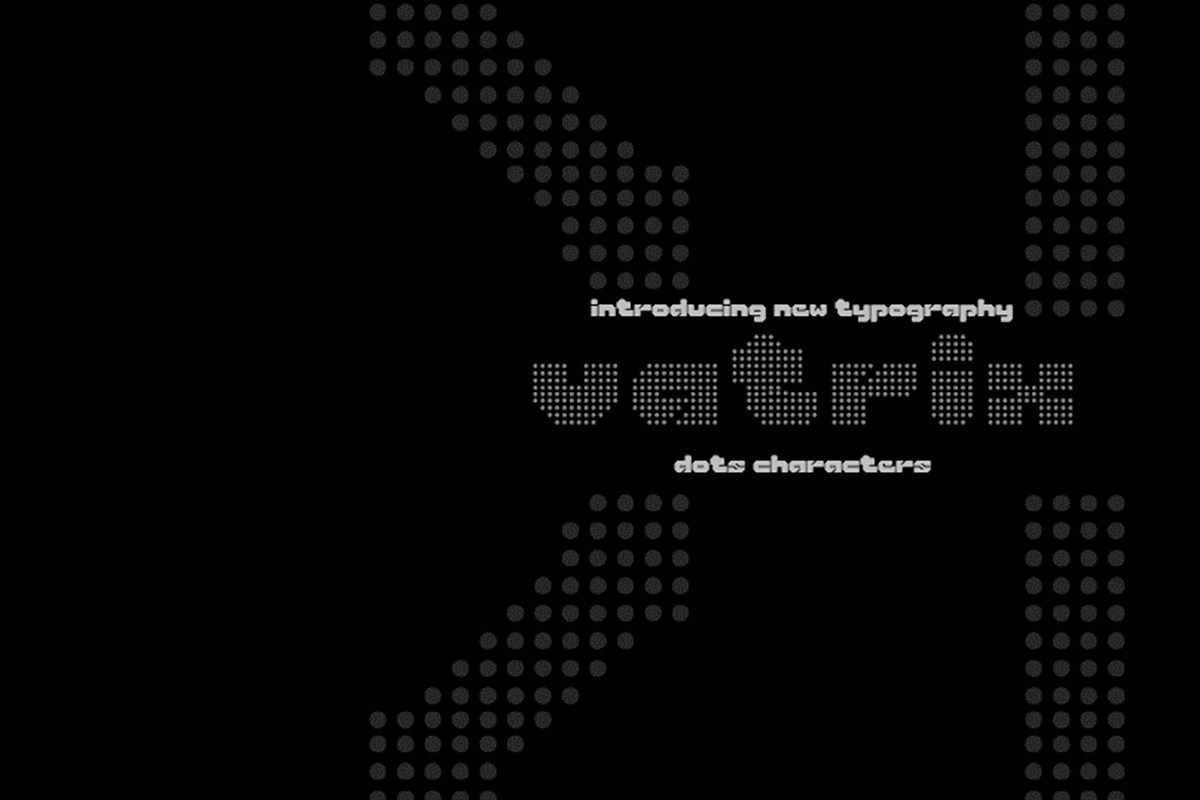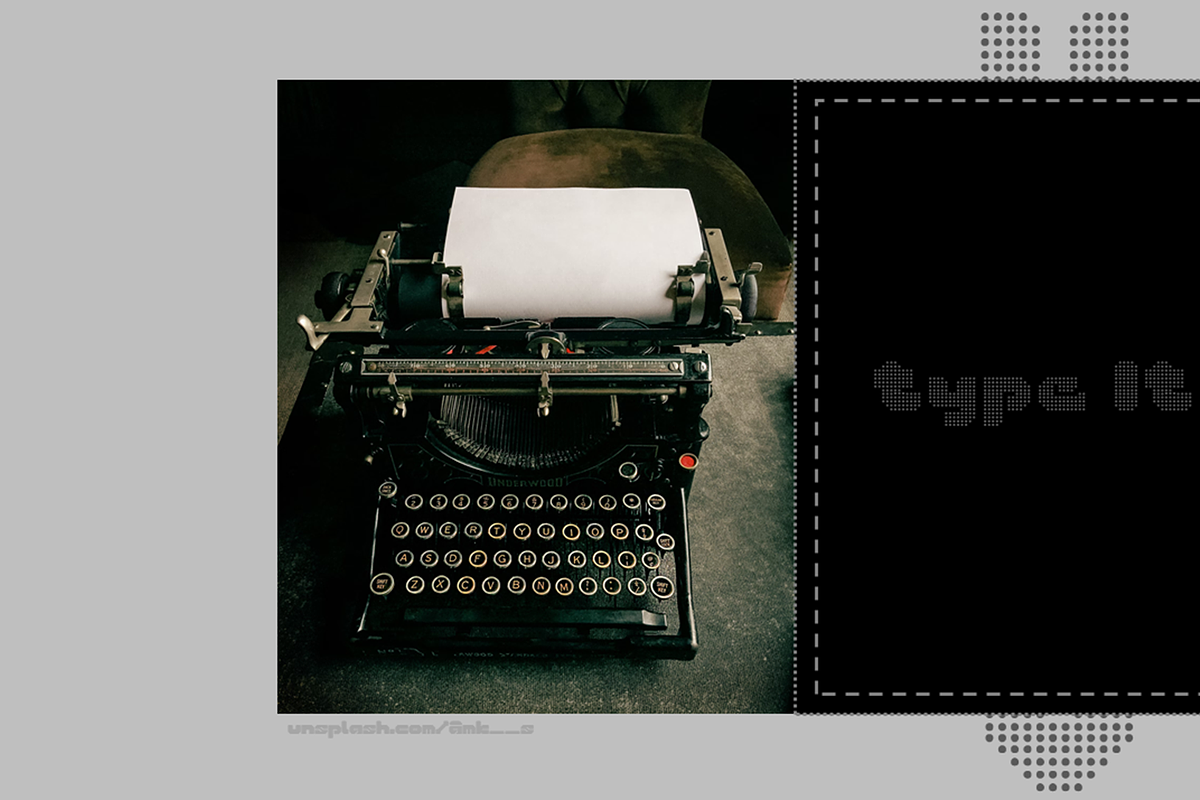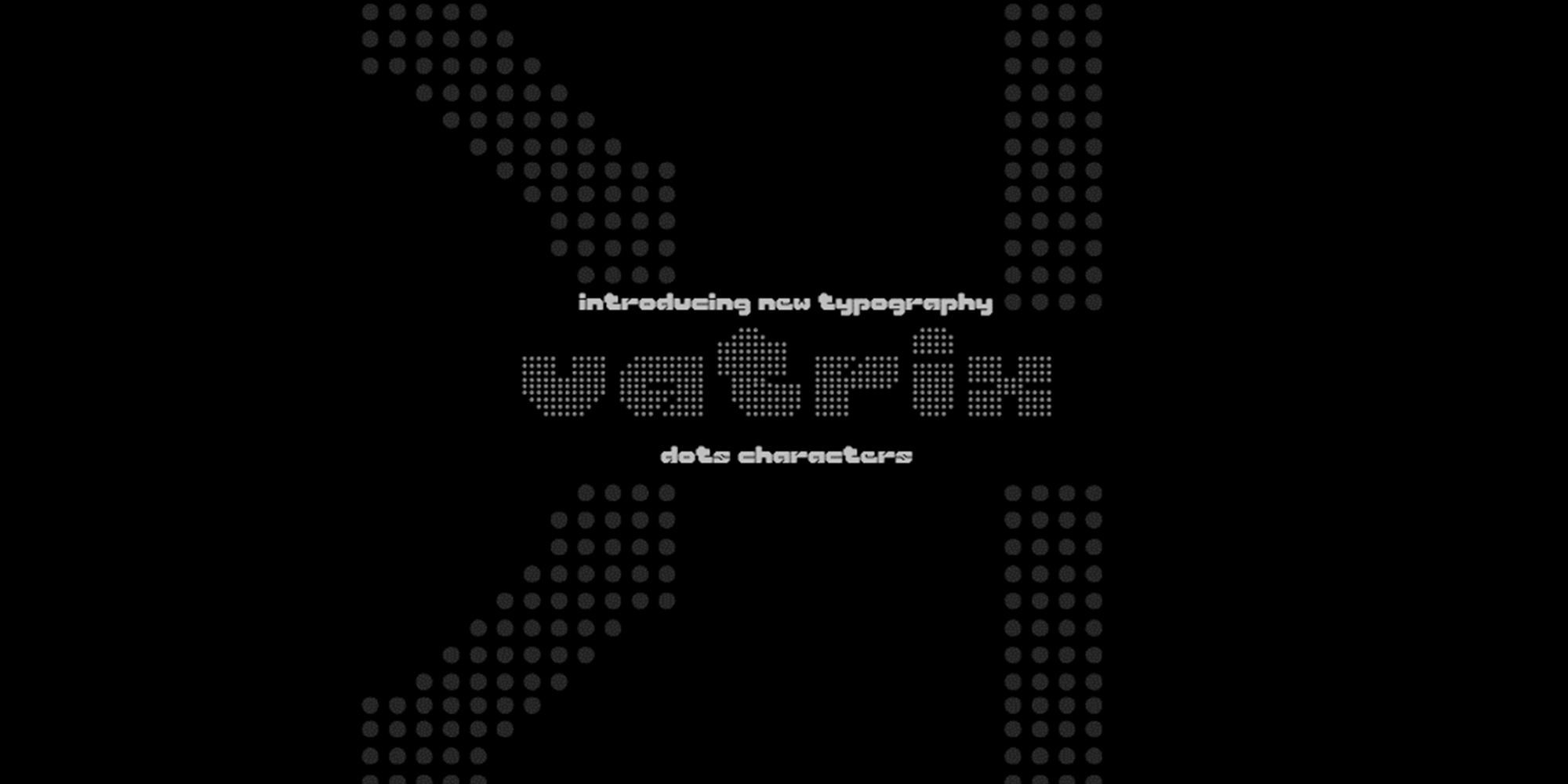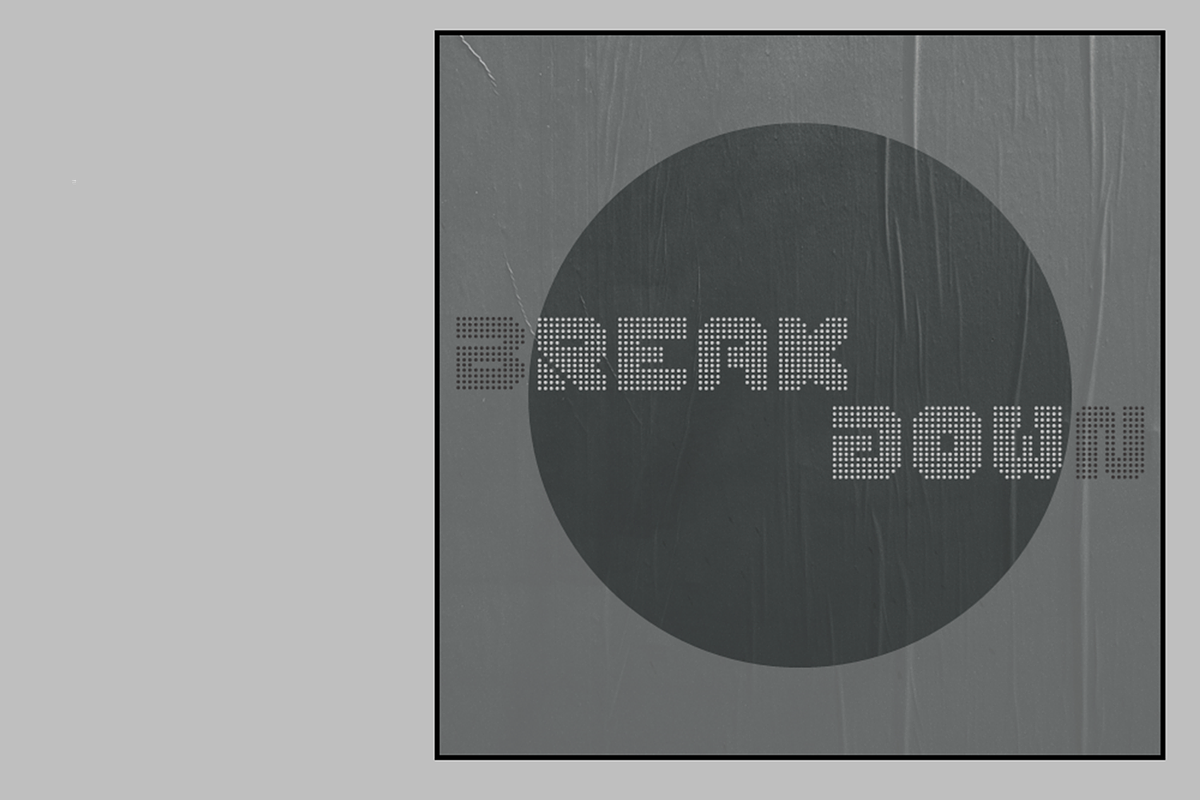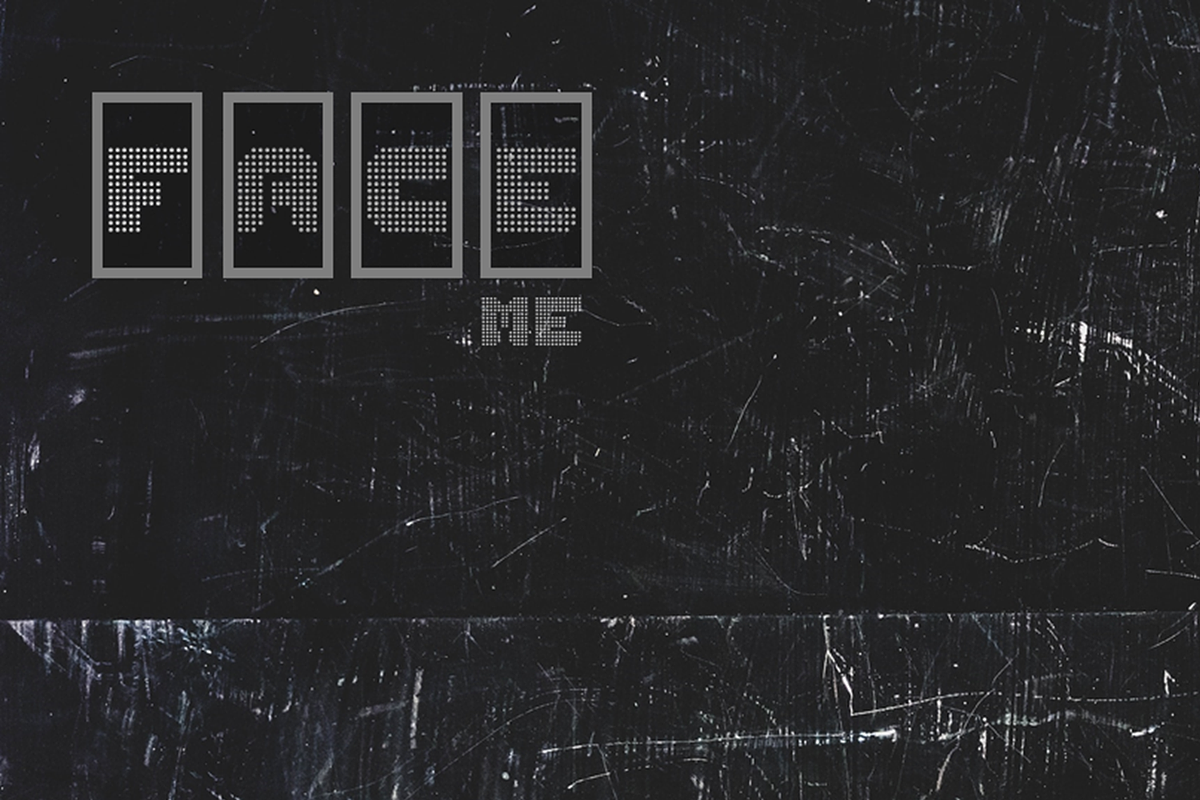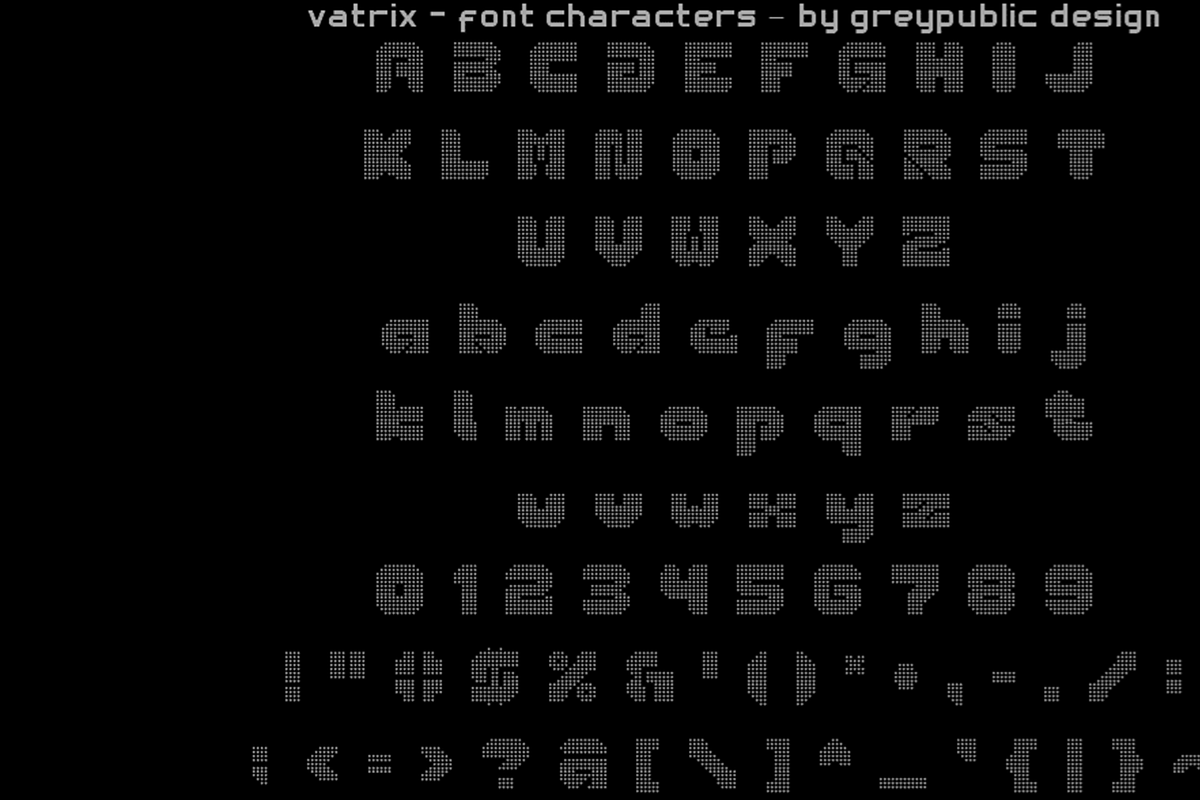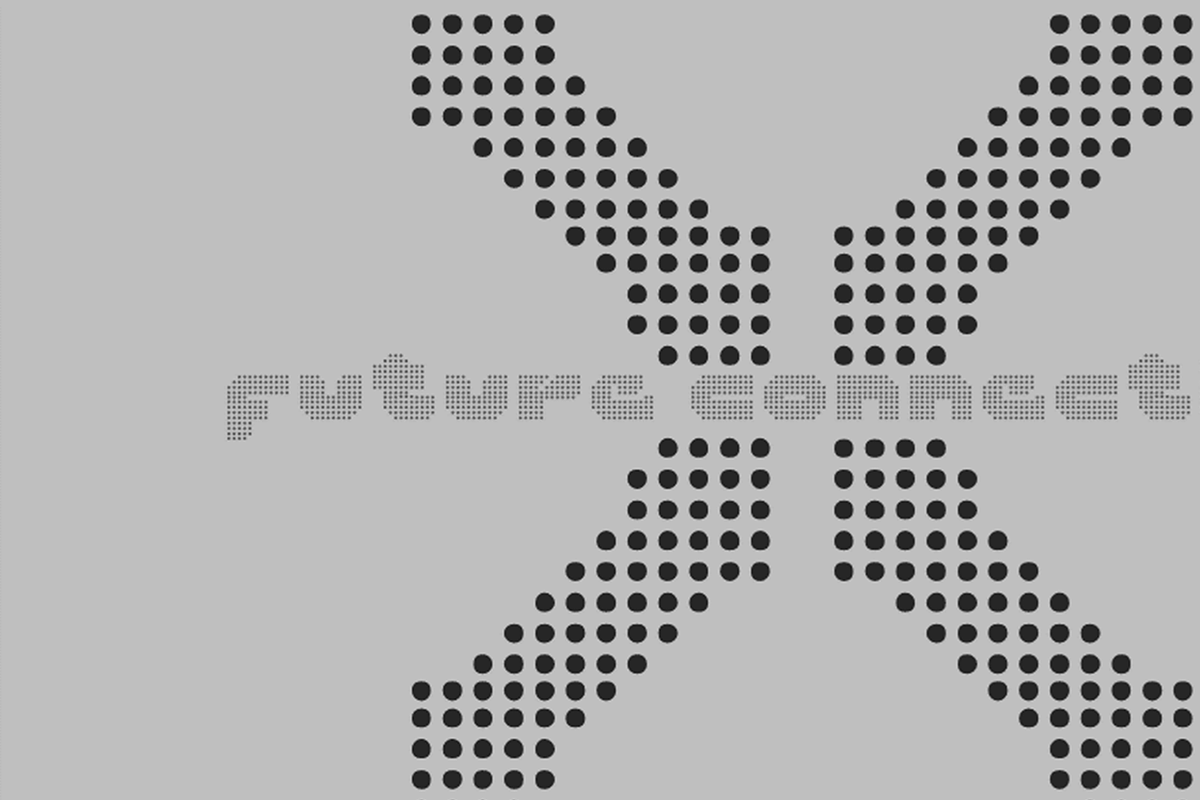
Vatrix font
Vatrix font is a style of dot matrix typography. This typography style is characterized by using a grid of dots to create letters, numbers, and symbols. Each character is formed by a pattern of dots arranged in a matrix, with each dot representing a pixel.
The typography is characterized by its distinctive pixelated appearance, limited resolution, and nostalgic charm, making it a unique and recognizable style in the world of typography.